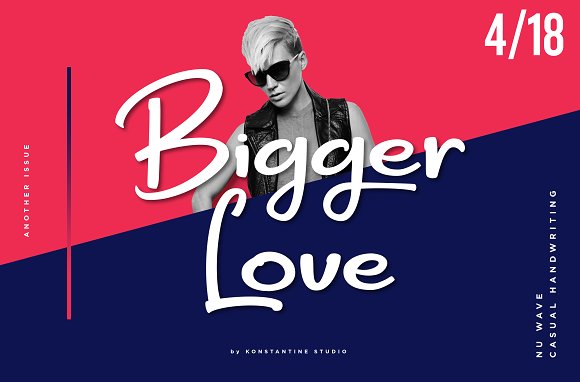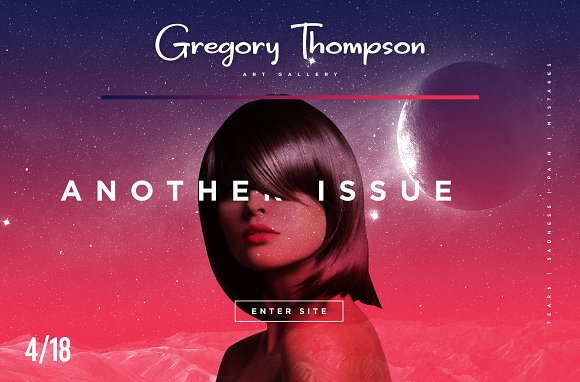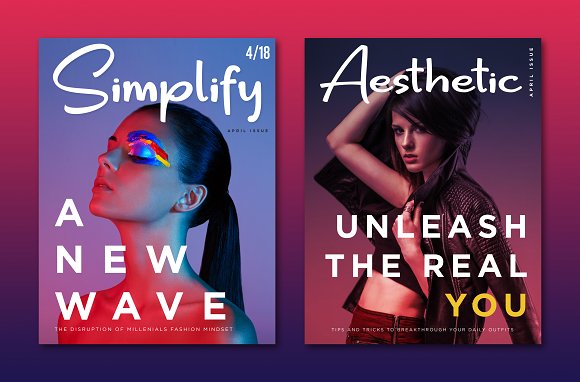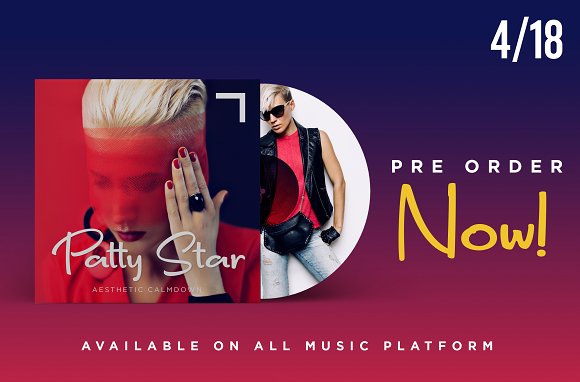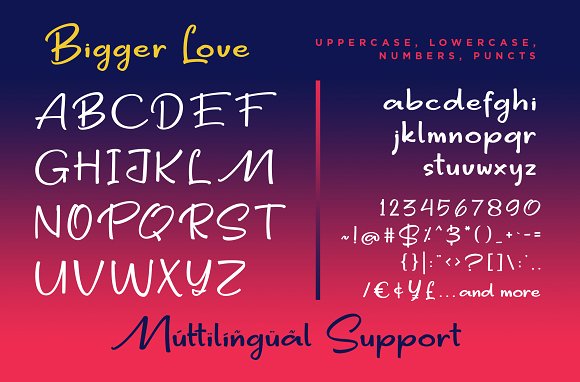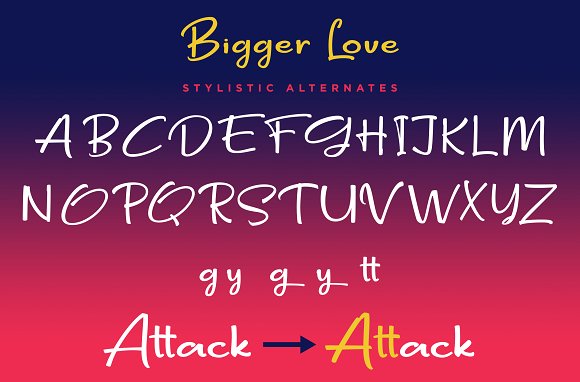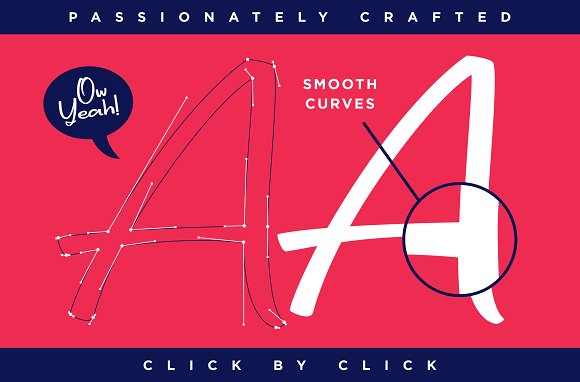
Bigger Love – Clean Handwriting Font
Bigger Love A fine clean semi-script and handwriting font based on the real flow of scratch from the paper. It takes the handwriting font style to the next level, with still keep the casual vibes but luxury and glam as well. Perfectly fit for a logo, branding, title, headline, pair it with your favourite sans-serif fonts and you’ll stand out classier than others.